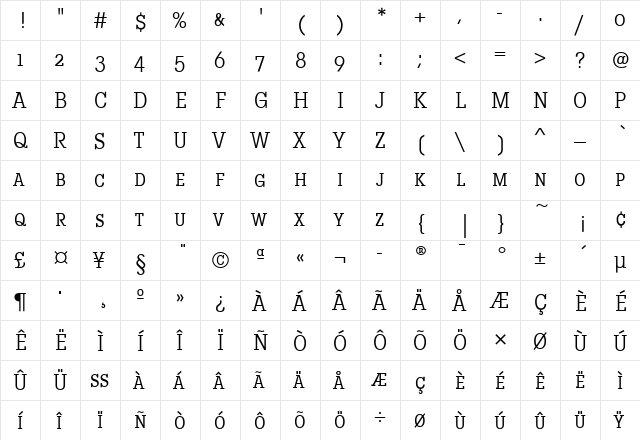
LubalinGraphCdSCITC Book
Design Context for LubalinGraphCdSCITC Typeface
LubalinGraphCdSCITC offers clean, dependable letterforms without strong stylistic allegiance, making it a practical choice for designers who need flexibility.
Pro Tip: Use LubalinGraphCdSCITC in both headline and body roles to test its range before committing to a single application.